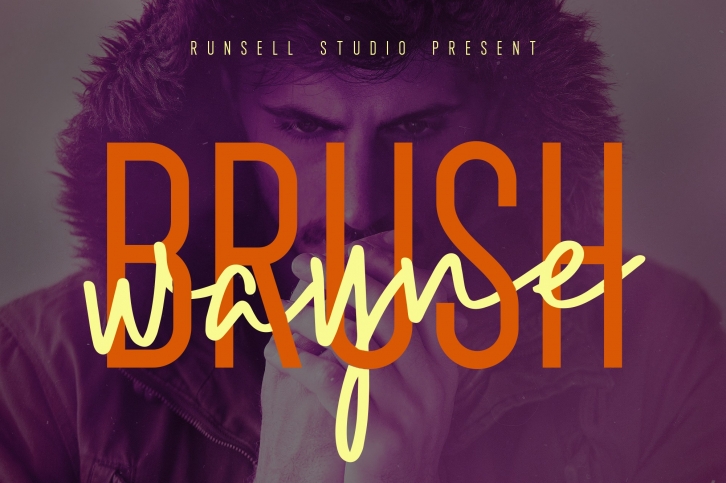
Brush Wayne Signature and Sans FONT Download
Brush Wayne Signature and Sans Font Download
Brush Wayne Signature and Sans is a gorgeous font that was realeased on February 19, 2018. The font can be used in many style contexts and design environments. Perfect for invitations, magazines, websites, logos, and more! It was designed by Runsell and the file size is 13.11 MB. Thanks for checking out this font!